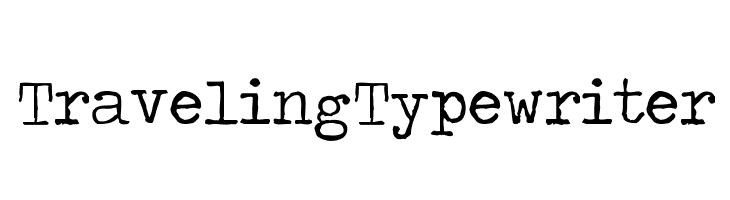
A bold, geometric display font with dynamic, abstract forms and high contrast.
A vintage typewriter-style font with a slightly distressed, hand-crafted appearance.
A tall, narrow font with elongated, smooth characters for a modern look.
A playful, bone-inspired font with a rough, hand-drawn aesthetic.
A futuristic, geometric font with rounded edges and consistent stroke width.
A bold, geometric font with a futuristic and digital aesthetic.
A bold, geometric font with a distressed, vintage texture.
A bold, distressed font with a grunge, vintage aesthetic.
A playful, bold font with rounded, bubbly characters and a hand-drawn style.
设计师偏爱 Solitaires, Tuigan Bold, TravelingTypewriter, BROUGHT THE STYLE and xBONES Rough,因为其造型干净、适用范围广—— 从品牌识别到落地页、海报都能胜任。